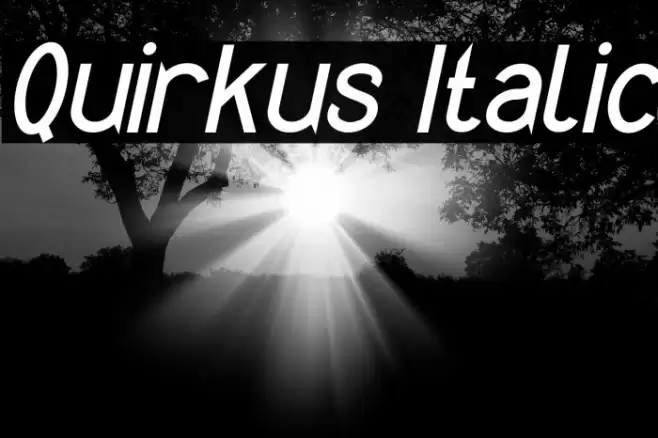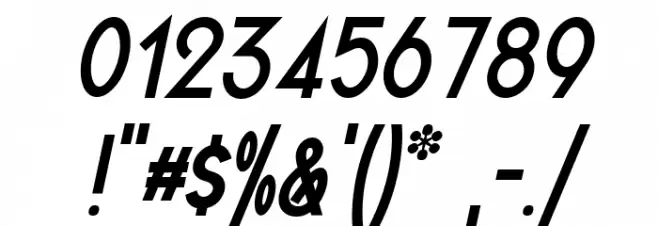
Quirkus Italic Font
Quirkus Italic Description
This font features a modern and dynamic style with a pronounced italic slant, giving it a sense of movement and energy. The characters are sleek and slightly condensed, with smooth curves and clean lines that enhance readability. The uppercase letters are bold and assertive, while the lowercase letters maintain a consistent flow, making it versatile for various design needs. The numerals are clear and distinct, ensuring easy legibility. Special characters are well-integrated, maintaining the overall aesthetic of the font. This font is suitable for projects that require a contemporary and stylish touch.
A modern, italic font with sleek, condensed characters and a dynamic style from Uncategorized fonts.